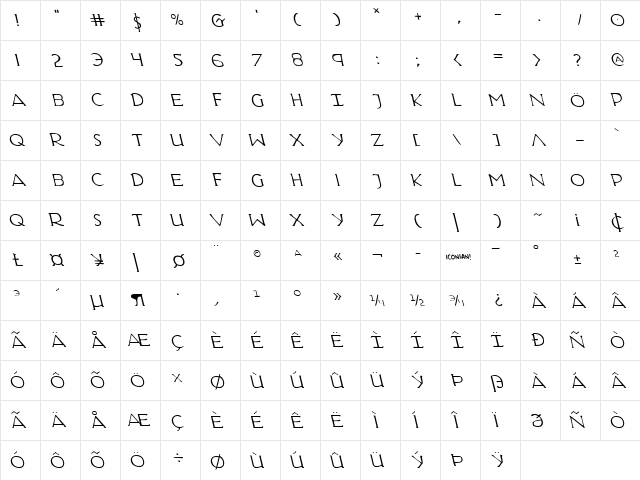
Hadriatic Leftalic Italic
Design Context for Hadriatic Leftalic Typeface
Hadriatic Leftalic is a composed and adaptable typeface that performs quietly and consistently across a wide range of design contexts. The dynamic lean of this cut emphasises speed and emphasis in any layout.
Pro Tip: Use Hadriatic Leftalic for emphasis, pull quotes, and subheadings where its slanted energy can add rhythm to the layout.